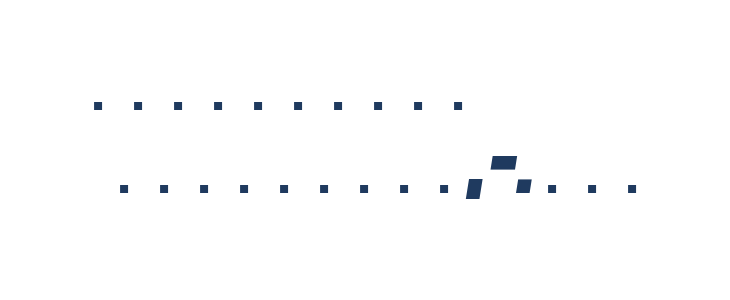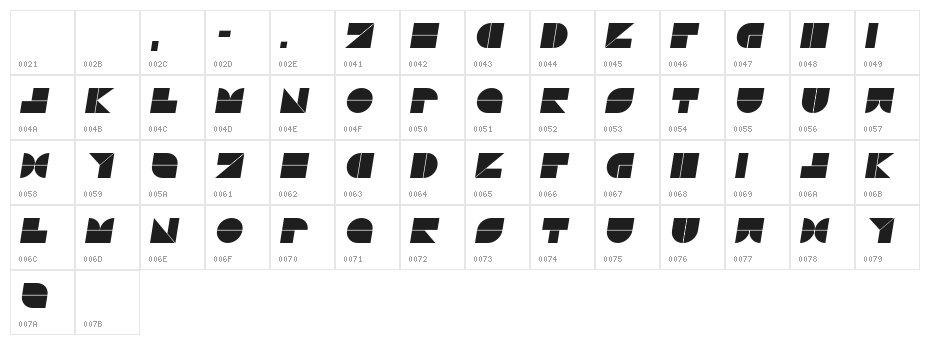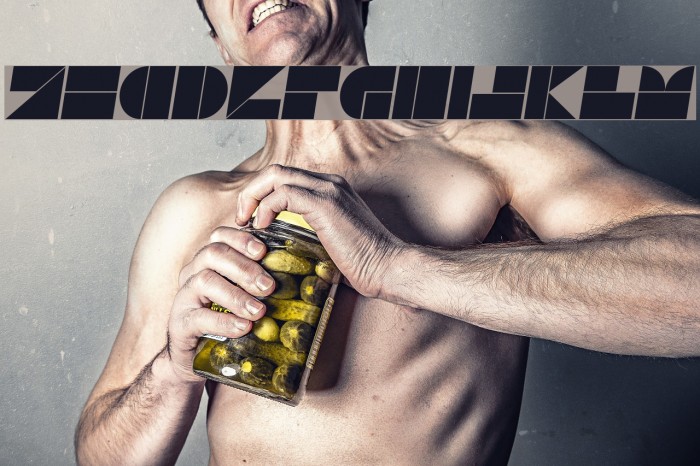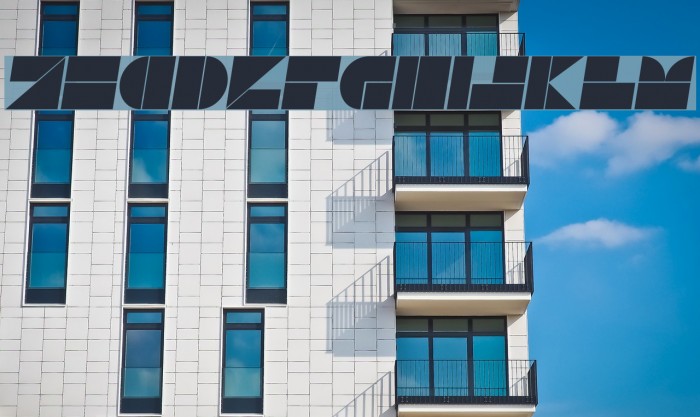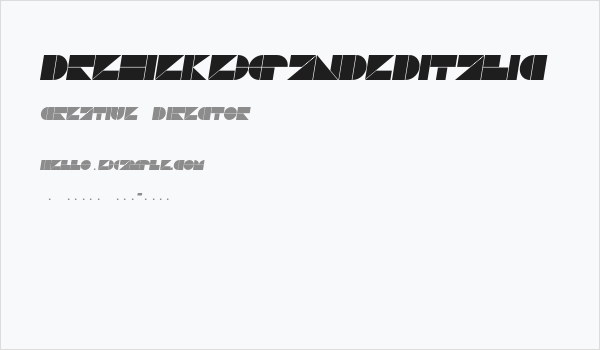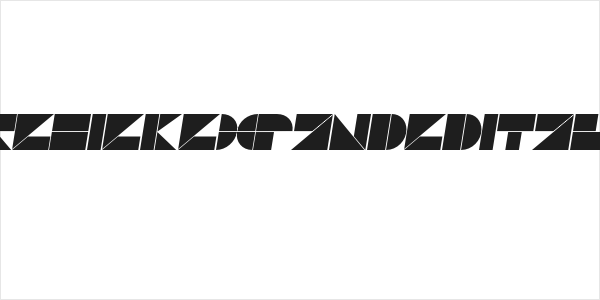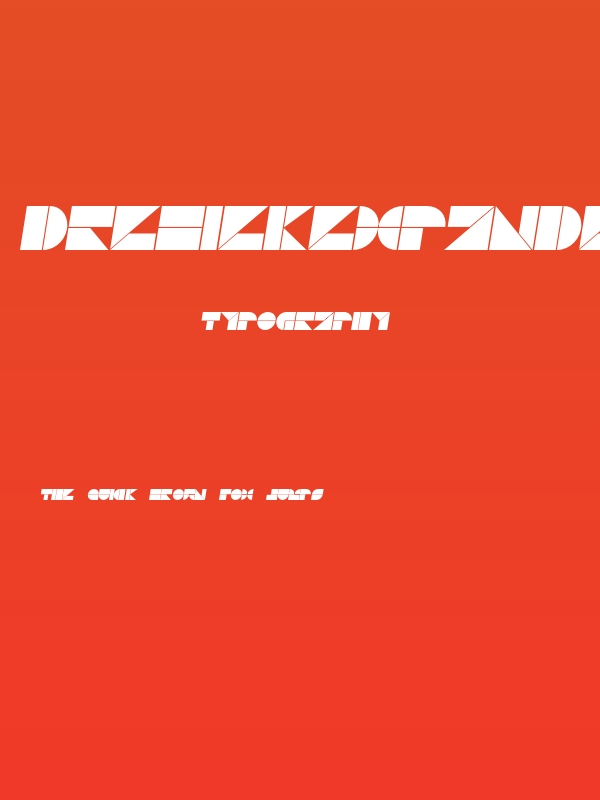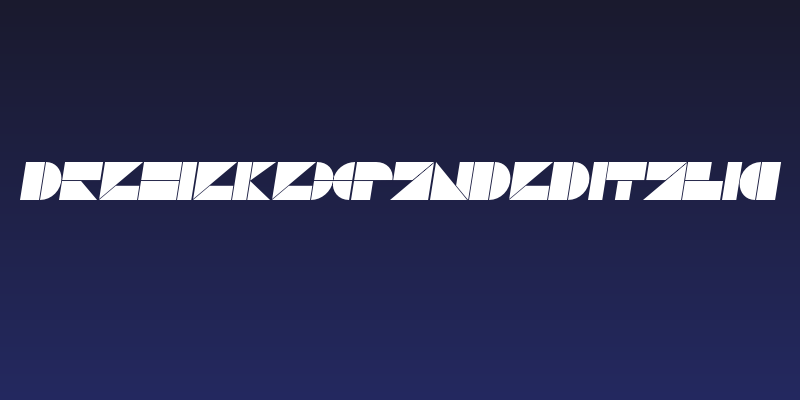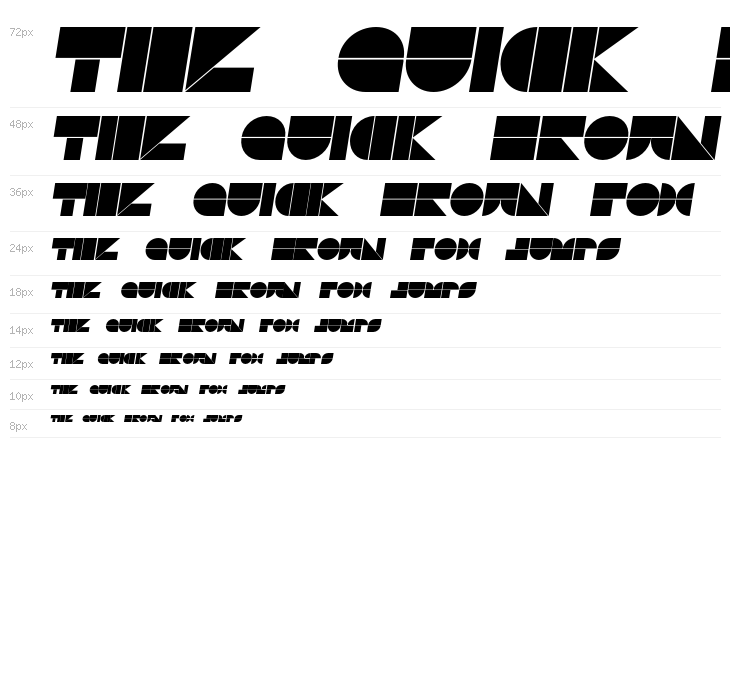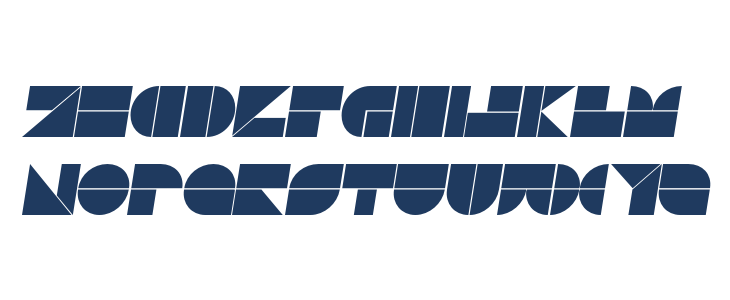
DrebiekExpandedItalic Font
DrebiekExpandedItalic Description
This font features a bold, geometric design with a distinctly modern and futuristic aesthetic. The characters are constructed using sharp angles and straight lines, creating a sense of movement and dynamism. The expanded width of the letters gives it a commanding presence, making it ideal for attention-grabbing headlines or titles. The italic style adds a slanted, forward-leaning appearance, enhancing the sense of speed and progression. The high contrast between thick and thin strokes further emphasizes its boldness, while the tight character spacing ensures compactness and cohesion. Overall, this font is perfect for projects that require a strong, impactful visual statement.
| Proposed Projects | Ideal for futuristic branding, sci-fi posters, tech-related logos, and modern advertising campaigns. |